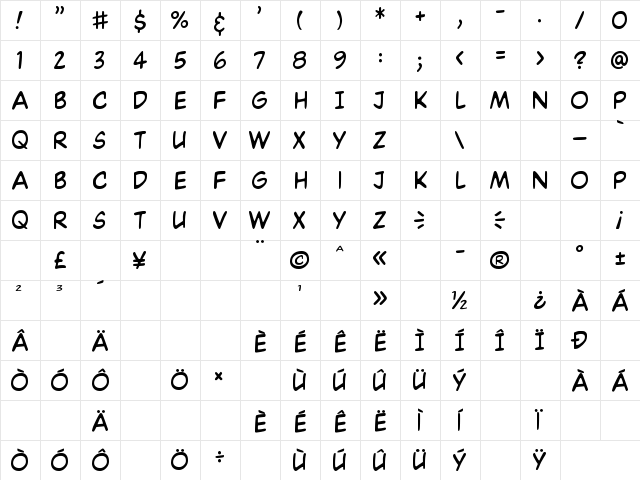
Mankinoid_2008 Regular
Design Context for Mankinoid_2008 Typeface
Mankinoid_2008 is a composed and adaptable typeface that performs quietly and consistently across a wide range of design contexts.